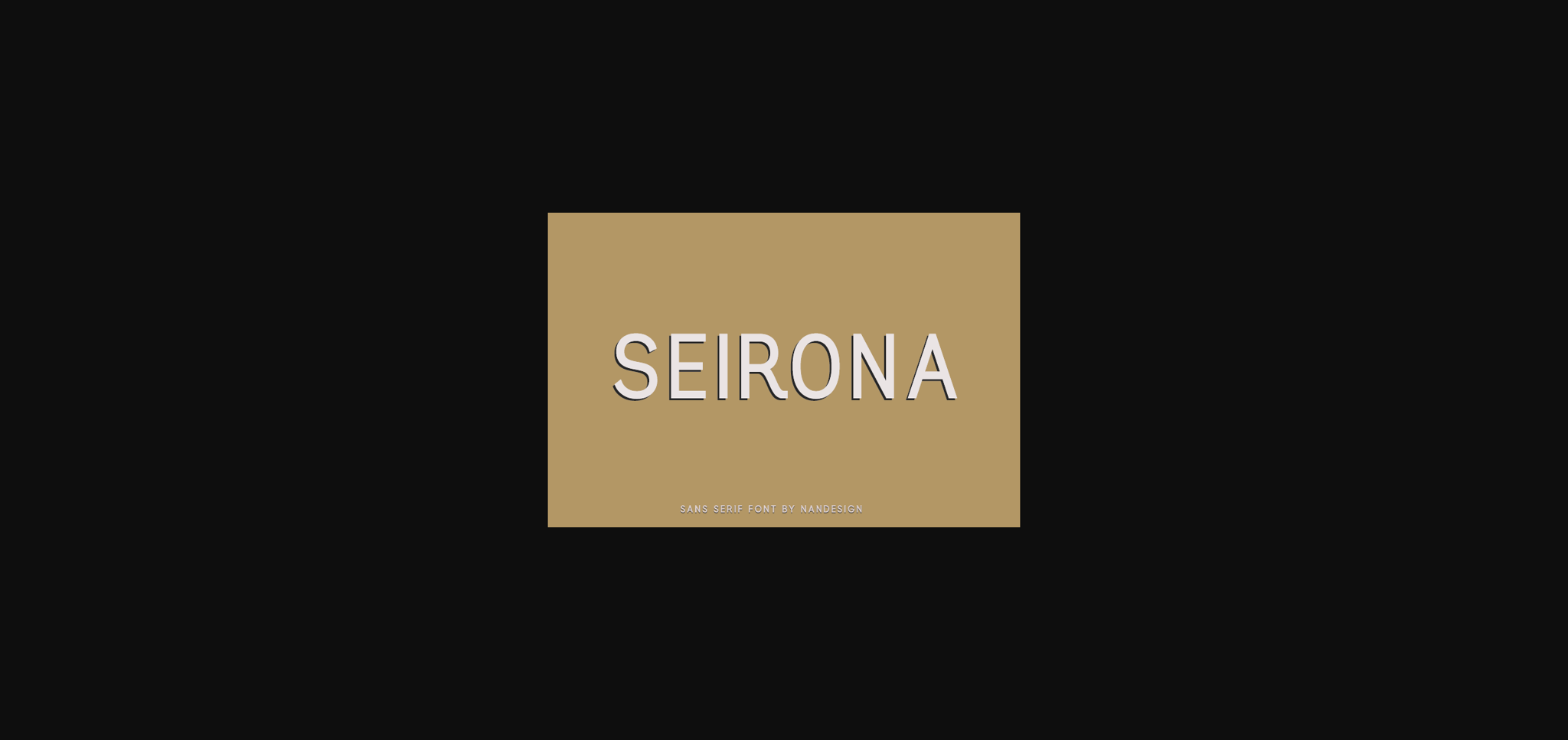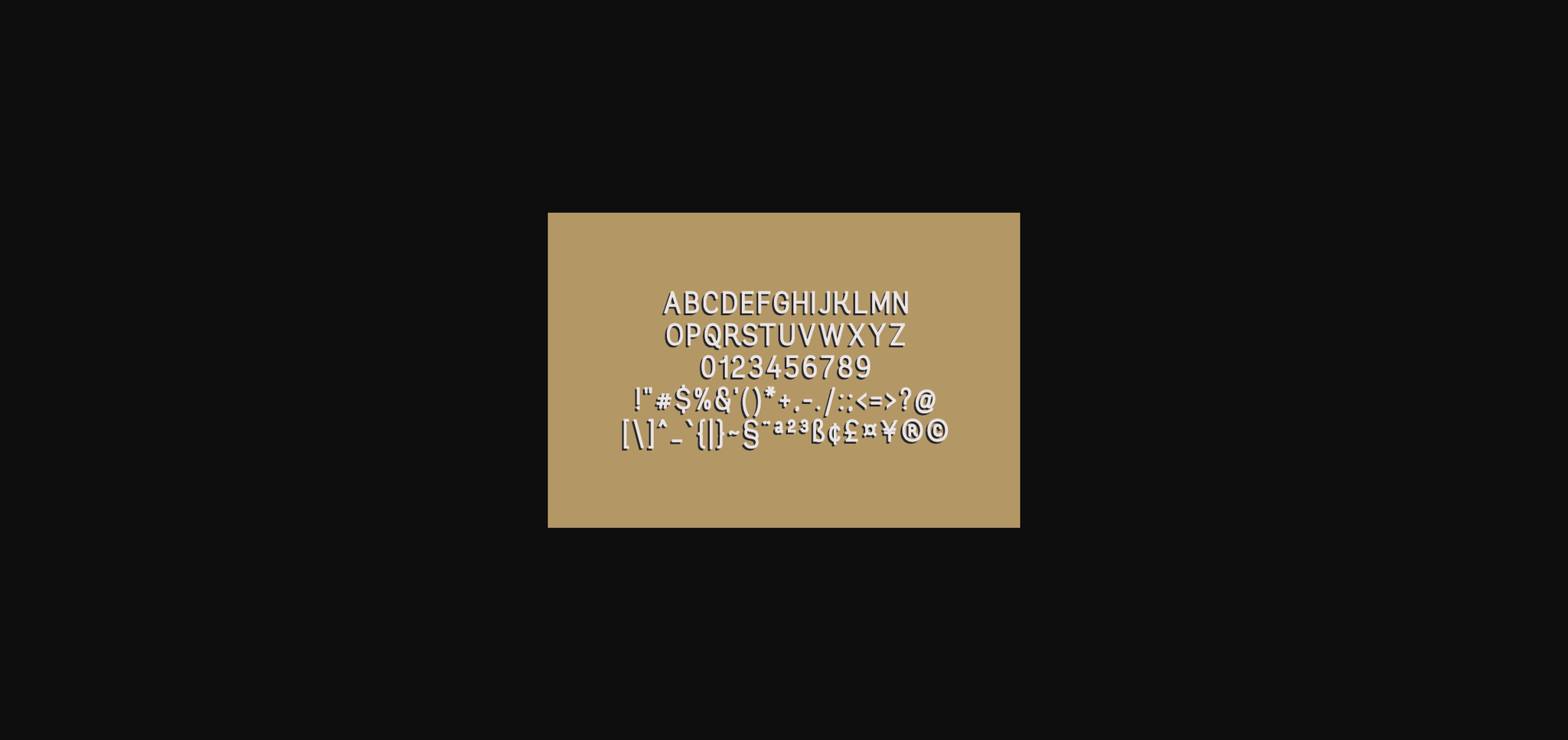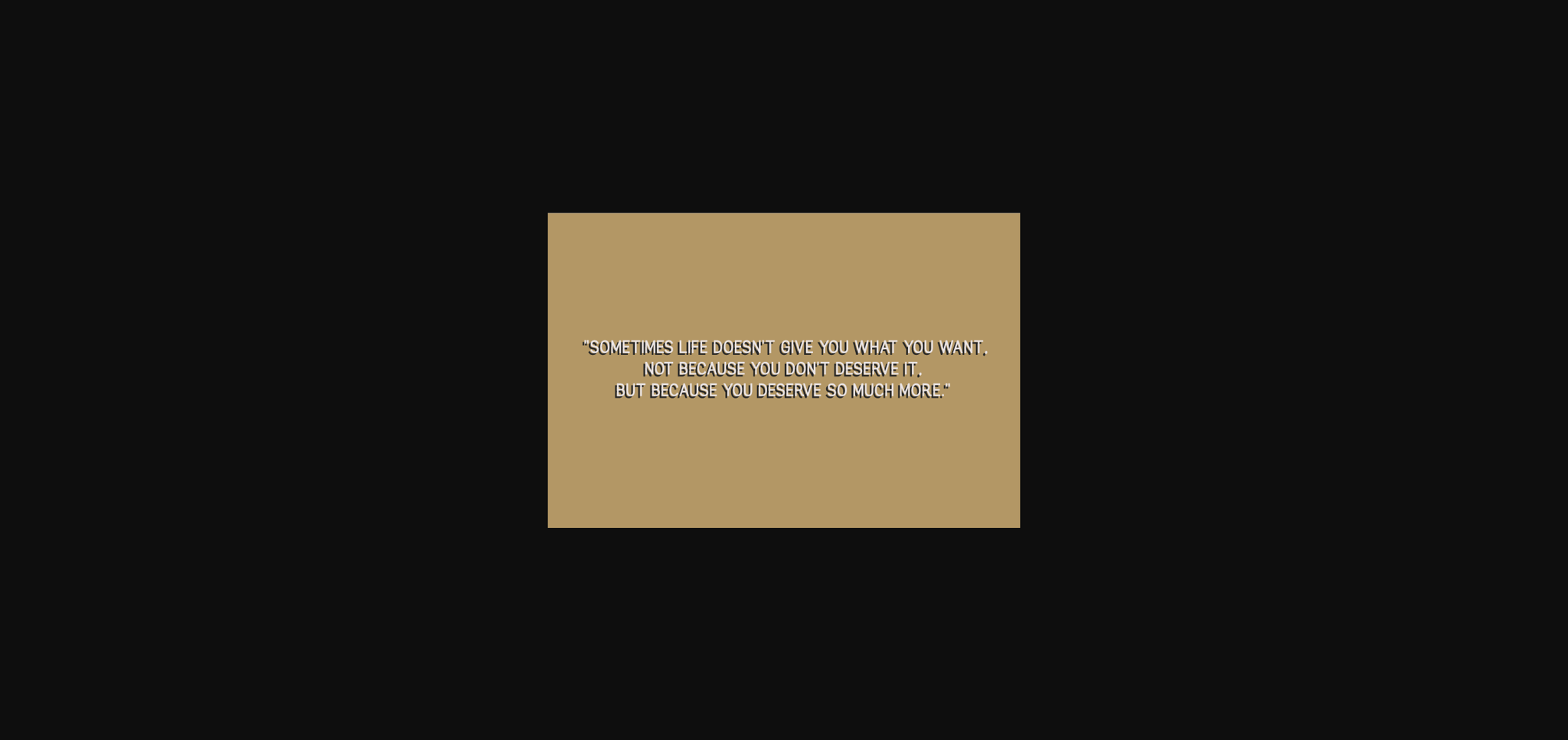
Seirona Font
About Seirona Font
Seirona is a smooth sans serif font. It will complement any design need perfectly with its perfectly balanced mix of the smooth and sharp!